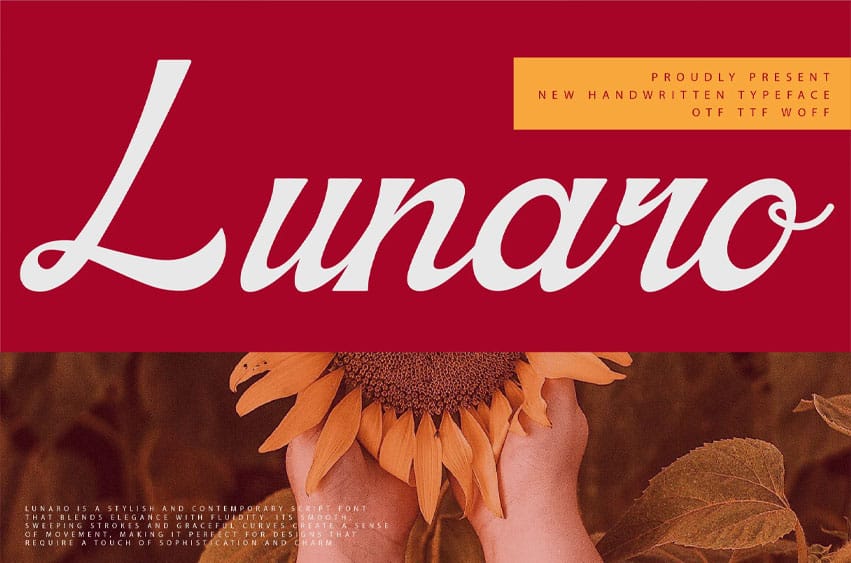
Lunaro Font is a stylish and contemporary script font that blends elegance with fluidity.
Its smooth, sweeping strokes and graceful curves create a sense of movement, making it perfect for designs that require a touch of sophistication and charm.